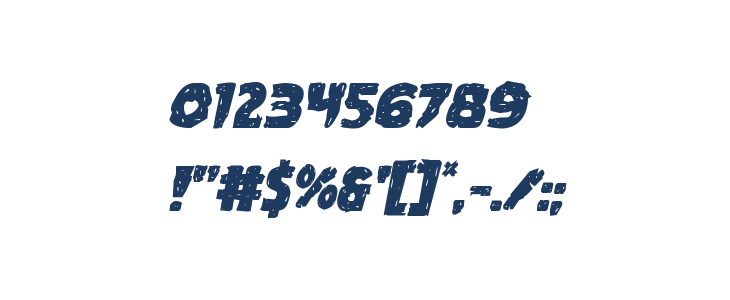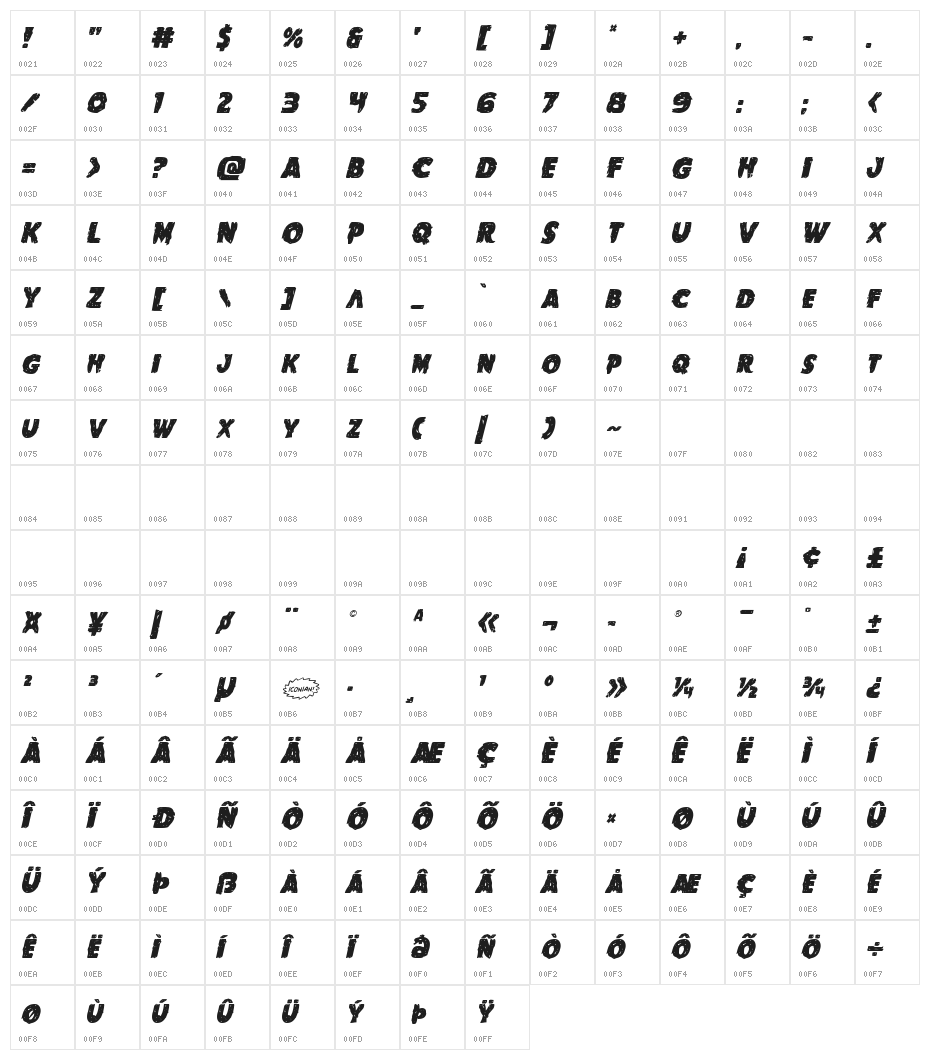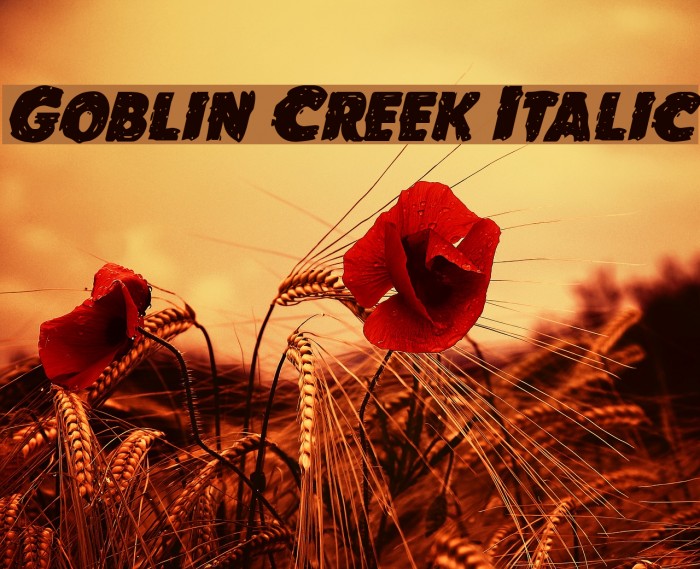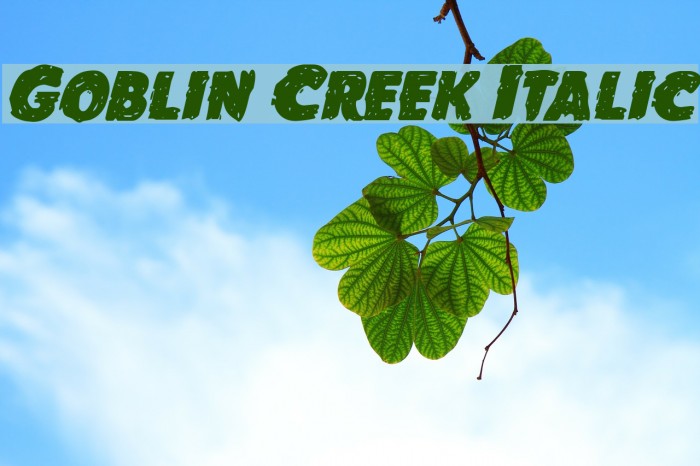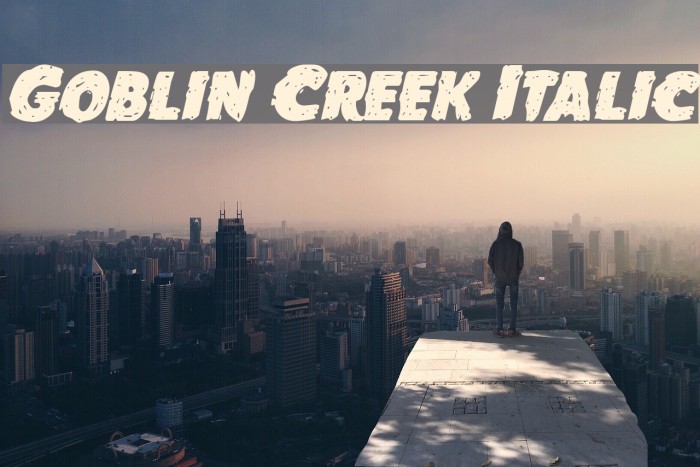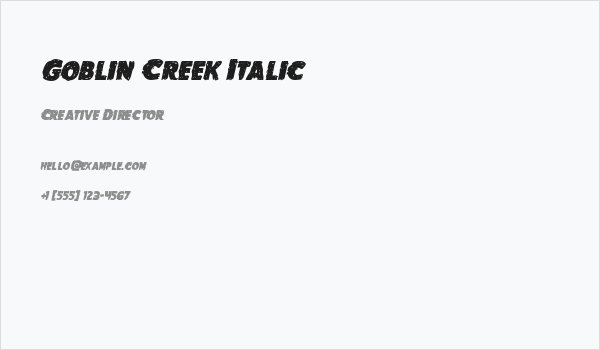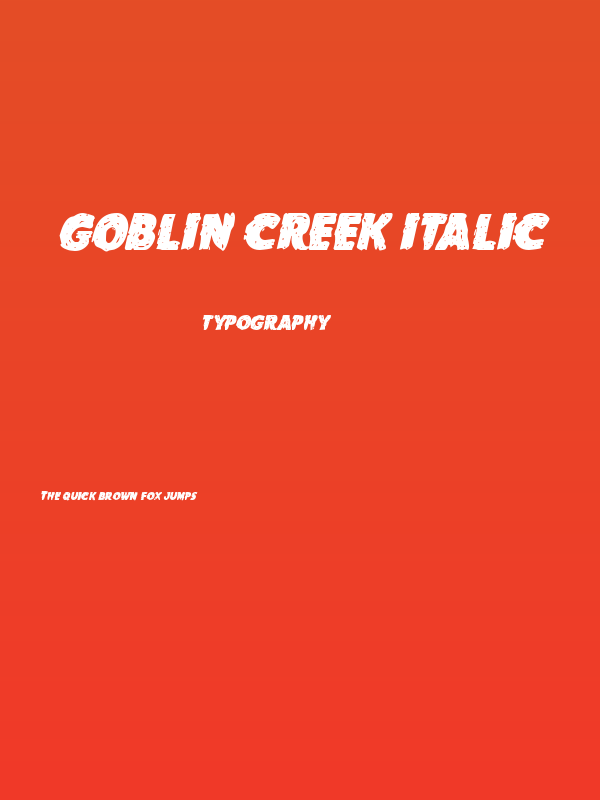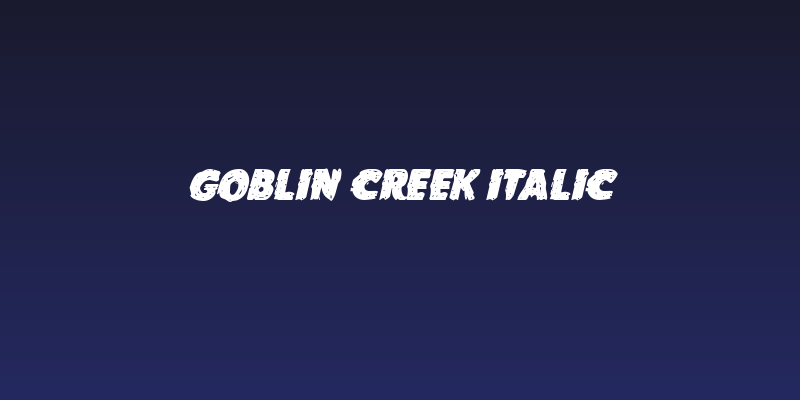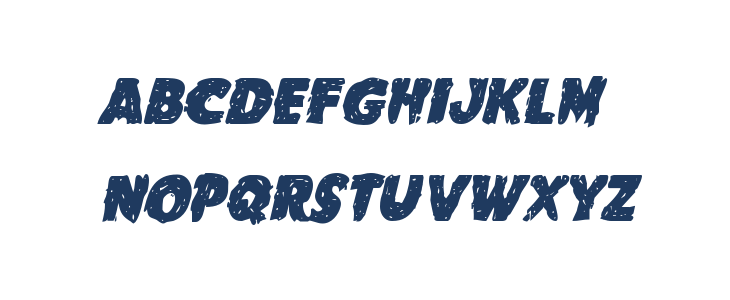
Goblin Creek Italic Font
Goblin Creek Italic Description
This font features a bold and dynamic style with a distressed, textured appearance that gives it a rugged, adventurous feel. The characters are italicized, adding a sense of movement and energy. The uppercase and lowercase letters maintain a consistent design, with jagged edges and irregular shapes that create a unique, eye-catching look. The numbers and special characters follow the same aesthetic, ensuring a cohesive appearance across all text elements. This font is perfect for projects that require a bold statement or a touch of edginess.
| Proposed Projects | Ideal for posters, video game titles, Halloween-themed designs, or any project needing a bold, edgy look. |